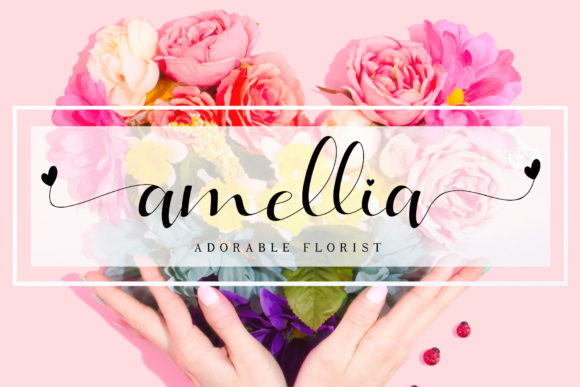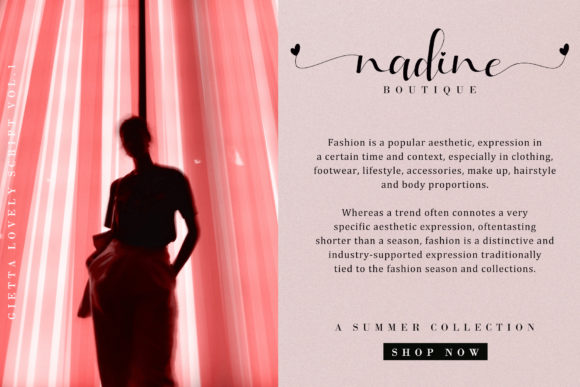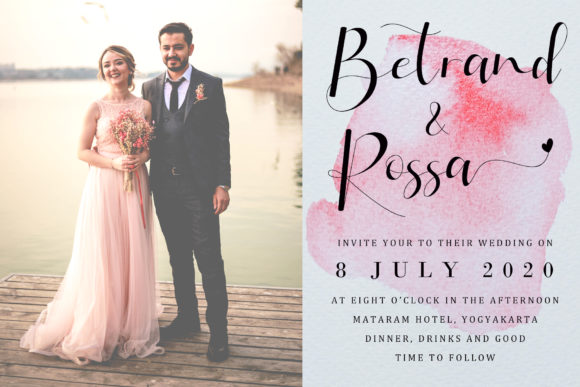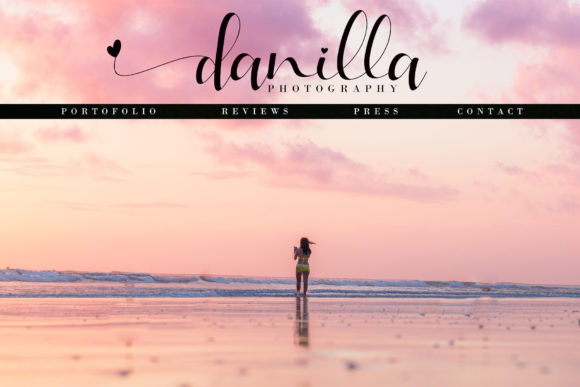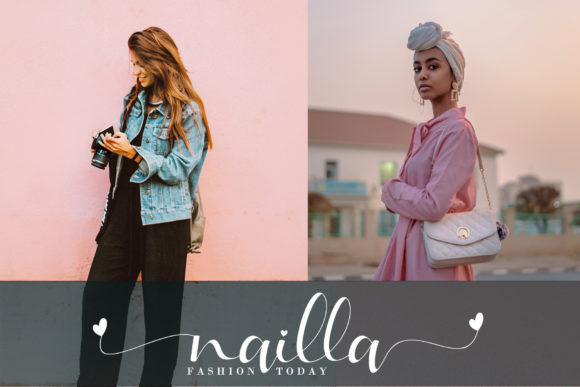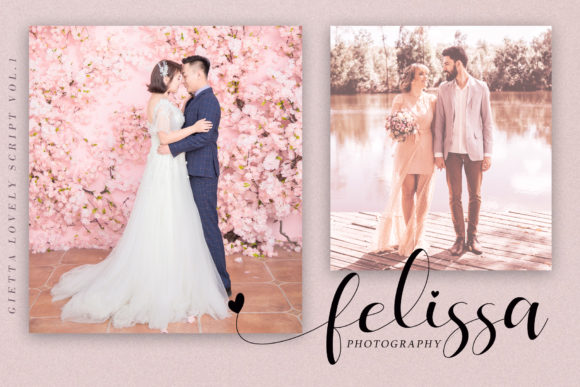
Gietta Font: The Sweet and Soft Hand-Lettered Font for Your Creative Projects
Are you looking for a font that can add a touch of sweetness and authenticity to your creative projects? Look no further than the Gietta font. This beautiful, hand-lettered font is perfect for designers and crafters who want to create stunning wedding invitations, stationary art, social media posts, and logos that exude a sense of warmth and personality.
What is Gietta Font?
Gietta is a sweet, soft hand-lettered font that is designed to give your projects a unique and authentic feel. Its delicate and elegant strokes make it perfect for creating beautiful and eye-catching designs that will capture the attention of your audience. Whether you’re a designer, crafter, or simply someone who loves to create, Gietta is a font that will inspire you to produce stunning work.
Features of Gietta Font
So, what makes Gietta font so special? Here are some of its key features:
- Hand-lettered authenticity: Gietta is a hand-lettered font, which means that each letter is carefully crafted to give it a unique and authentic feel.
- Sweet and soft: The font has a sweet and soft quality that makes it perfect for creating designs that are elegant and sophisticated.
- Delicate strokes: The delicate strokes of Gietta font make it perfect for creating beautiful and intricate designs.
- Versatile: Gietta is a versatile font that can be used for a wide range of projects, from wedding invitations to social media posts.
Uses of Gietta Font
Gietta font is perfect for a wide range of creative projects, including:
- Wedding invitations: Create beautiful and elegant wedding invitations that will set the tone for the big day.
- Stationary art: Use Gietta to create stunning stationary art, such as greeting cards, thank you cards, and more.
- Social media posts: Add a touch of sweetness and authenticity to your social media posts with Gietta font.
- Logos: Create eye-catching logos that will help your brand stand out from the crowd.
Tips for Using Gietta Font
Here are some tips for using Gietta font in your creative projects:
- Pair it with other fonts: Gietta font looks great when paired with other fonts, such as sans-serif fonts or script fonts.
- Experiment with colors: Try out different colors and textures to add depth and interest to your designs.
- Use it for headings: Gietta font is perfect for headings and titles, as it adds a touch of elegance and sophistication.
In conclusion, Gietta font is a beautiful and versatile hand-lettered font that is perfect for designers and crafters who want to add a touch of sweetness and authenticity to their creative projects. With its delicate strokes, sweet and soft quality, and hand-lettered authenticity, Gietta is a font that will inspire you to produce stunning work. So why not give it a try and see what amazing designs you can create?
Whether you’re creating wedding invitations, stationary art, social media posts, or logos, Gietta font is a great choice. Its unique and authentic feel will help your designs stand out from the crowd and capture the attention of your audience. So go ahead, fall in love with Gietta font, and create something beautiful today!